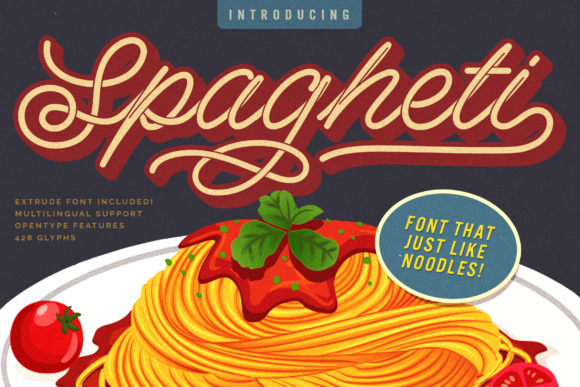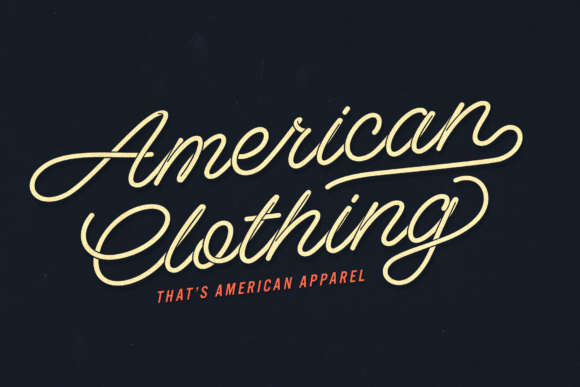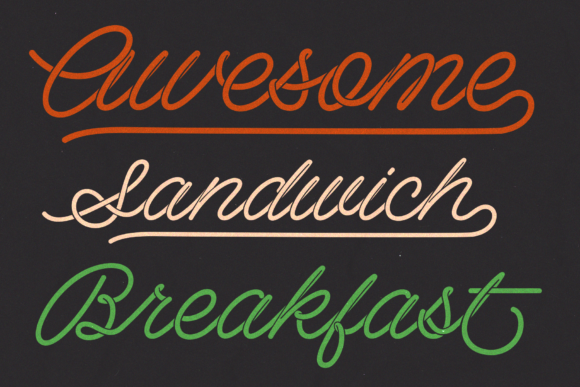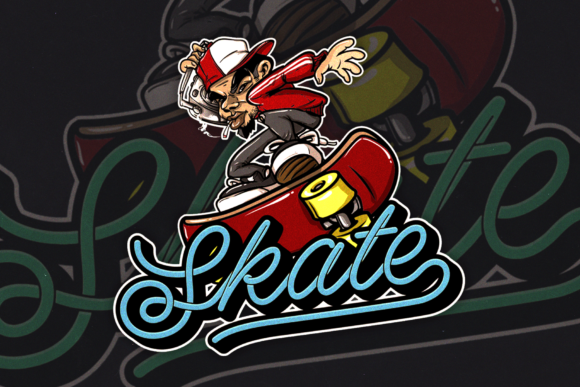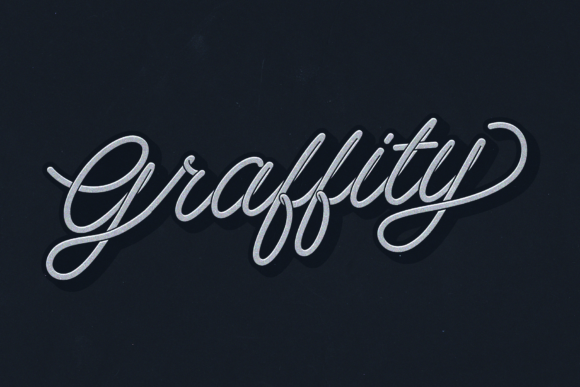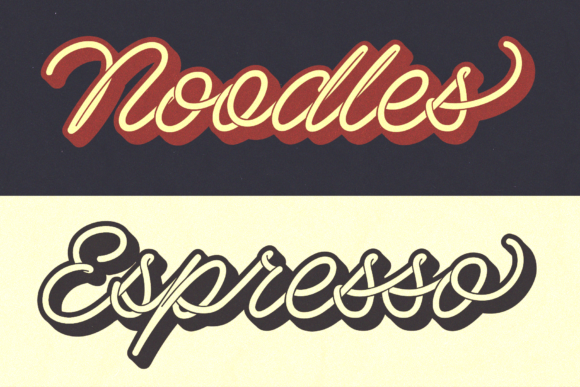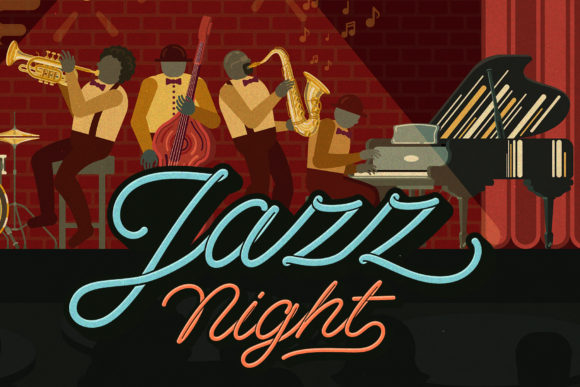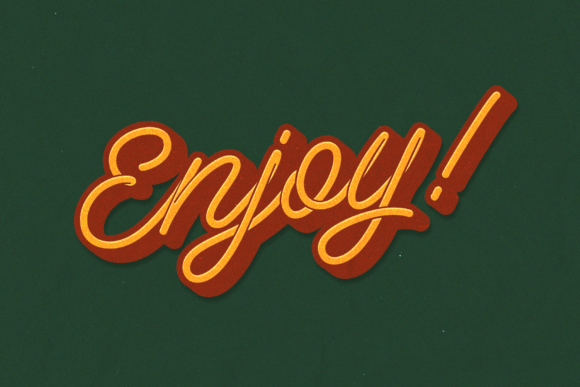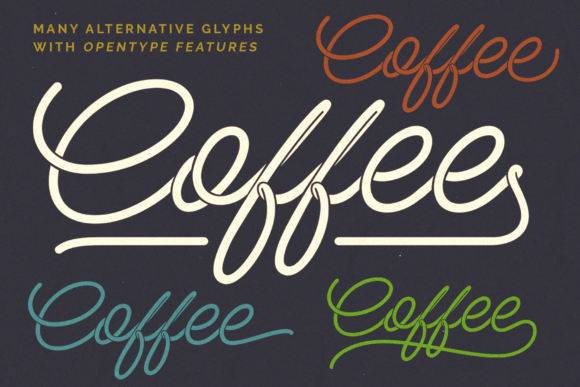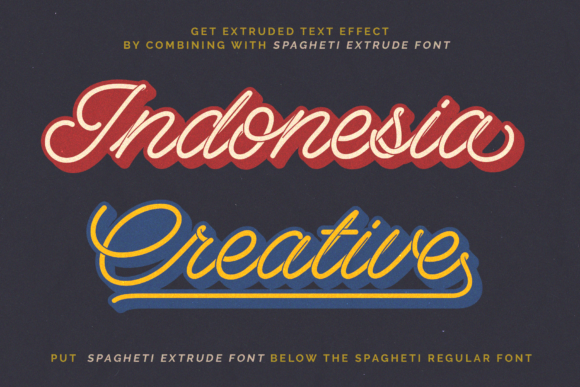
Spagheti Font
About Spagheti Font
Spagheti celebrates all good things in life. This deliciously charming script font will elevate any craft project to the highest level.